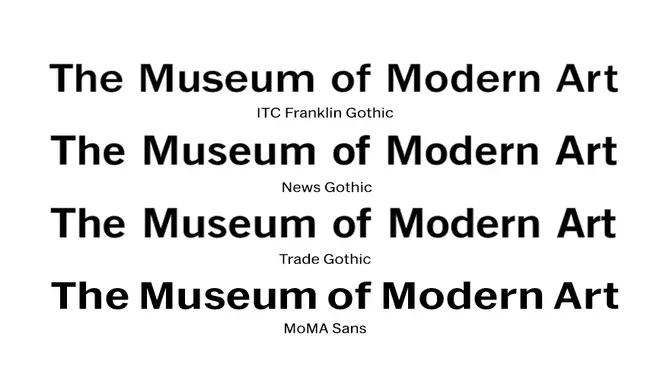
The Museum of Modern Art’s (MOMA) font phenomenon has taken the design world by storm. To rebrand and update its visual identity, the museum ditched its outdated logo and replaced it with a sleek new design featuring the typeface “MOMA Sans.”
The font was created specifically for the museum and has since garnered a cult following among designers and art enthusiasts alike.Have you ever noticed the font used in the Museum of Modern Art (MOMA)?
If so, you’re not alone. The MOMA font has garnered much attention recently due to its unique design and universal applicability across industries. The Museum of Modern Art (MOMA) is home to some of the world’s most iconic works of art.
But did you know that the museum also has its font? The MOMA font is a custom typeface specifically for the museum’s use in its publications, signage, and online presence. This unique font has become a defining aspect of the museum’s visual identity, giving its communication materials a distinct and recognizable look. Here, we’ll explore the MOMA font’s design, history, and applications.
The MOMA Font
If you’re a typography enthusiast, you’re probably familiar with MoMA Sans, the font rapidly becoming the town’s talk. The Museum of Modern Art, or MoMA in New York City, specifically commissioned MoMA Sans for their graphic design and branding initiatives.
The idea behind MoMA Sans was to create a cohesive family font that we could use across the board for all their typographic needs. MoMA Sans plays a secondary role in the hero-typeface of each exhibition. And we also can use it for anything else that the designers at MoMA can dream up.
Christian Schwartz designed it, with input from Matthew Carter, and Ilya Ruderman added Cyrillic support. Recently, they added MoMA Sans to MoMA’s digital font collection. This versatile font has become integral to MoMA’s visual identity, paving the way for other institutions and companies to follow suit.
Who Designed The MOMA Font?
Christian Schwartz, under the direction of MoMA and Made Thought, designed MoMA Sans – the font used by MOMA. MoMA Sans is an elegant and modern font versatile enough for any exhibition. Greg Gazdowicz drew MoMA Sans italics, and Ilya Ruderman added Cyrillic support to the font.
Before they designed MoMA Sans, MOMA’s typographic needs were met by a mix of sans serifs. However, MoMA Gothic is MoMA’s house font, serving as a template for exhibition title walls. MoMA Sans serves as the secondary font, and it is an all-purpose font to use in a variety of contexts.
The MOMA font phenomenon is a testament to the power of typography and how it can create a distinct identity for an organization. Although the Whitney Museum is free to use any typeface for individual exhibitions, they still use MoMA Sans for about 17% of their exhibits.
The MOMA font phenomenon shows no signs of slowing down, with its clean, elegant design remaining popular with designers and brands alike.
Use Of MOMA Font In Different Contexts
The Museum of Modern Art MoMA specifically created Sans font for them. Covering various typographic needs. They used it in various contexts, such as exhibition graphics, print materials, signage, mobile apps, and website. While MoMA Sans is the primary typeface in most cases, it can also play a secondary role to other typefaces for exhibition graphics.
MoMA Gothic, another typeface, is used for about two-thirds of MoMA’s exhibition title walls. The Museum of Modern Art has an impressive collection of 23 digital fonts, including MoMA Sans, designed to provide a unified and premium visual identity to the viewer. Overall, the MOMA font phenomenon is a perfect example of how typography can play a critical role in the visual identity of a brand or institution.
Its Use In Advertising
The MOMA font phenomenon has caught the attention of many with its unique and versatile typefaces. MoMA Sans is a cohesive typeface for the Museum of Modern Art to cover all their typographic needs. Although it is secondary to other typefaces for specific exhibitions, it’s versatile enough.
One notable use of the MOMA font is in advertising, where people use it to create clean, modern designs that stand out from traditional fonts. They also used MoMA Gothic for most of MoMA’s exhibition identities. Giving the museum a consistent and recognizable brand image. MoMA has an impressive collection of 23 digital fonts, showcasing the importance of typography in graphic design.
Its Use In Popular Culture
The MoMA font phenomenon refers to MoMA Sans, a font family commissioned by MoMA to replace their mix of sans serifs for all their typographic needs. MoMA Sans is versatile as a secondary typeface to keep things fresh in exhibition graphics, print materials, and signage.
Christian Schwartz drew the font with input from Matthew Carter under the direction of the MoMA in-house design team and London design consultancy Made Thought. It also features italics by Greg Gazdowicz and Cyrillic support by Ilya Ruderman.